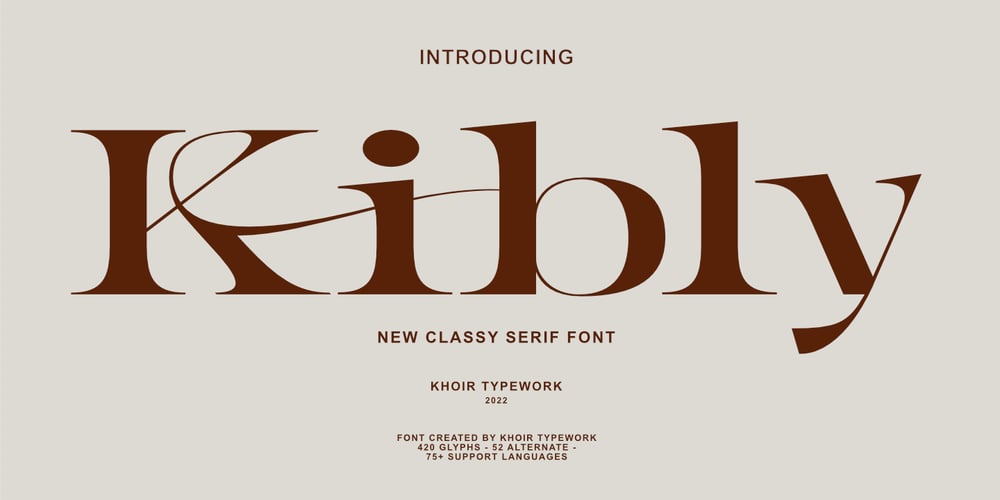
Kibly Font Family was designed by Muhammad Romzul Khoir and published by Khoir. Kibly contains 1 styles and family package options. Kibly – Clean, classy serifs have beautiful curves and alternative additions that make this font look elegant, great for logo designs, titles, posters, business cards, branding needs, and more.What’s included? Uppercase Characters Lowercase Characters Support 75+ Language Alternative Variation